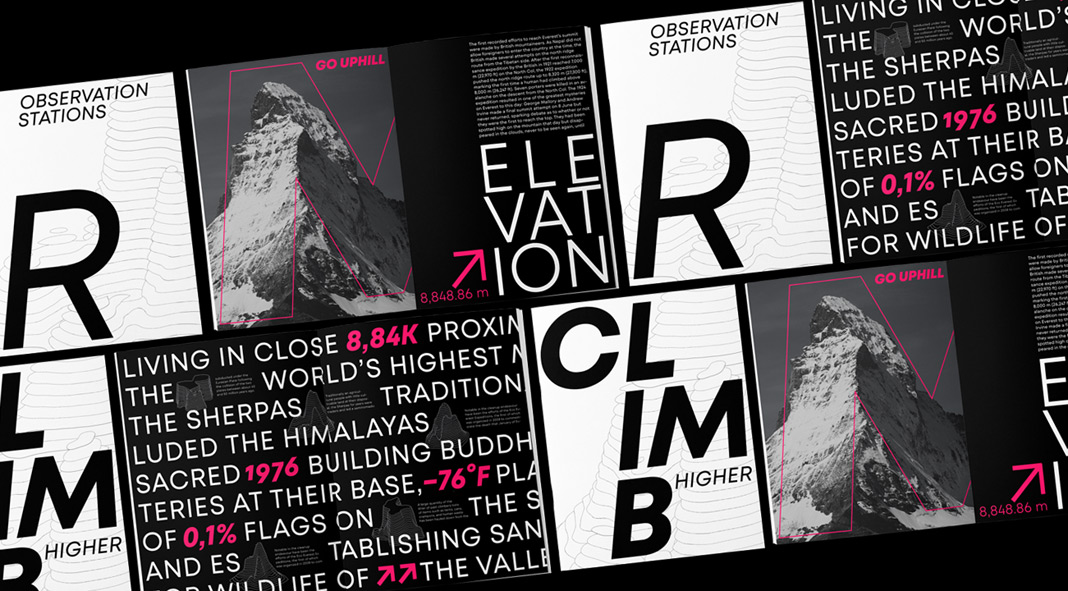
Mont Blanc, a new versatile font family published in 2021 by type foundry Fontfabric.
The Mont Blanc font family has been designed by Svetoslav Simov and Vika Usmanova for foundry Fontfabric. It is intended to be an independent flawless text font family inspired by the legendary geometric sans serif, Mont.